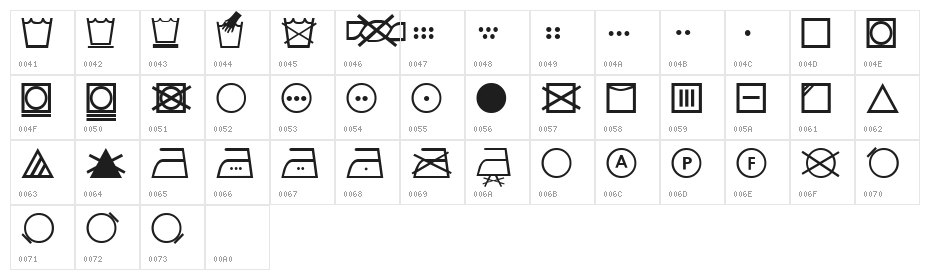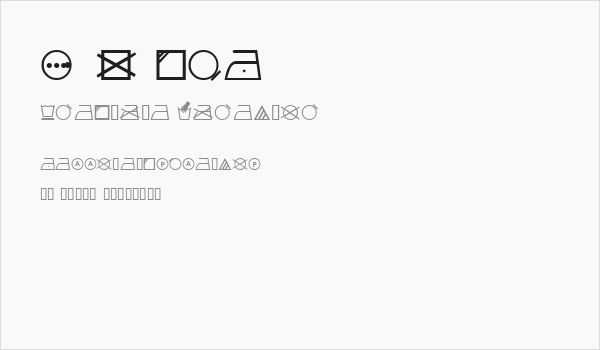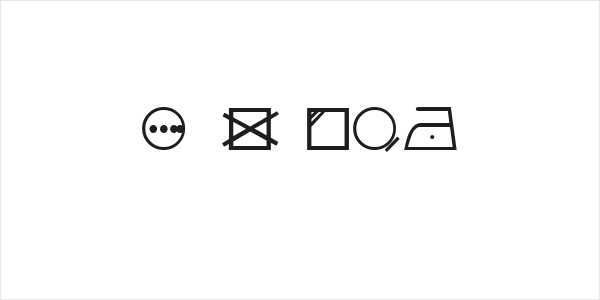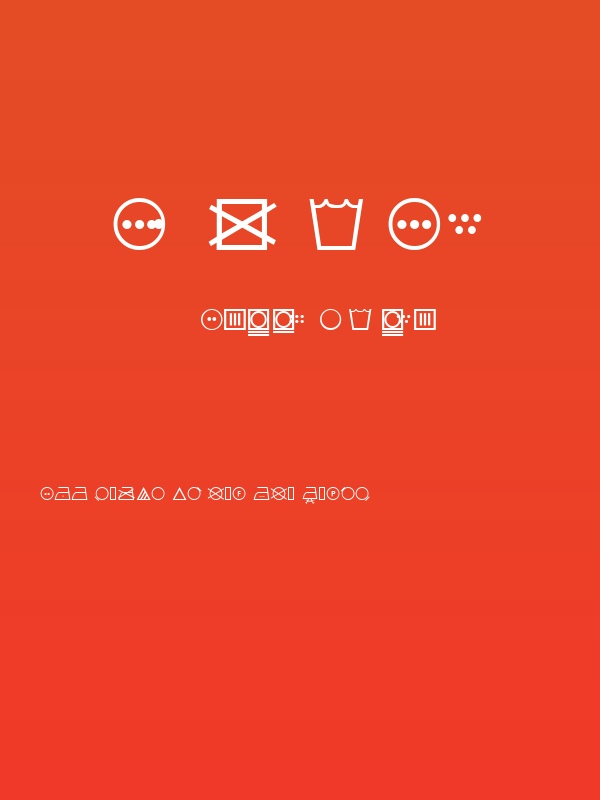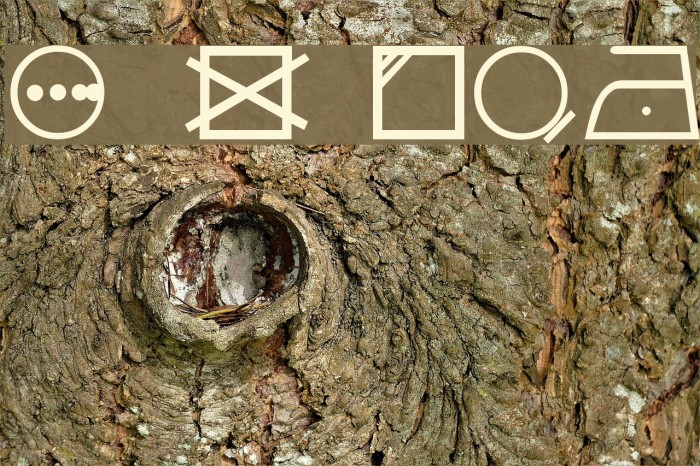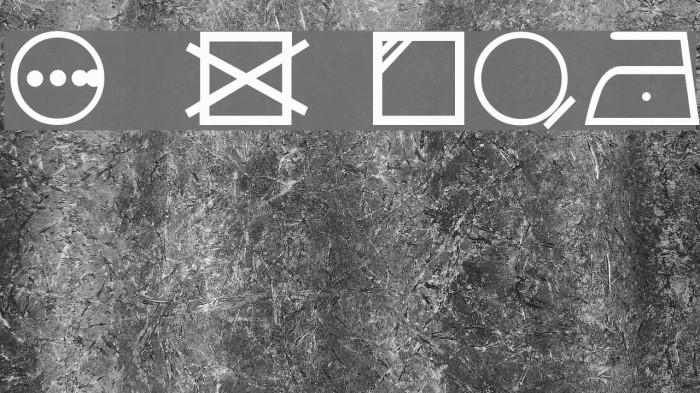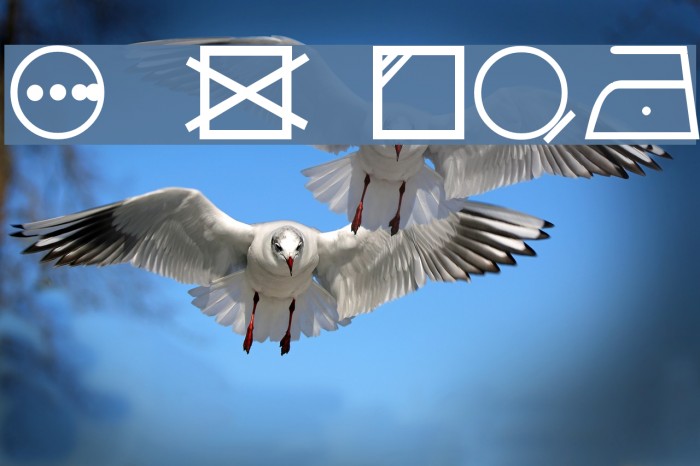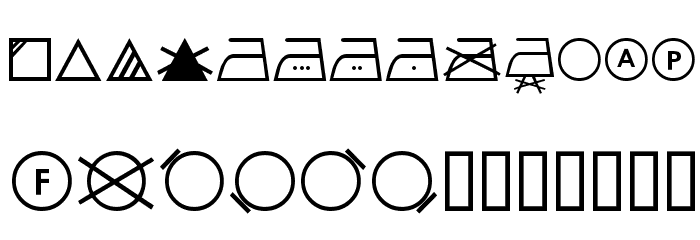
SL Wash Font
SL Wash Description
A pictogram-based dingbat font featuring laundry care symbols such as washing, ironing, drying, and dry cleaning icons, rendered in a clean, geometric, and highly legible style with consistent line weights and minimal decorative elements.
| Overall Style | Modern, Functional |
| Use Case | Icons, Instructional graphics, Labels |
| Proposed Projects | Laundry guides, clothing labels, instruction manuals, textile industry materials, infographics. |